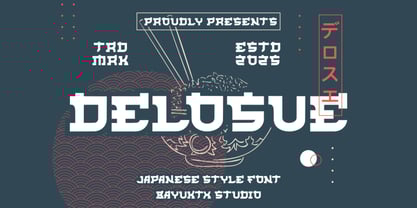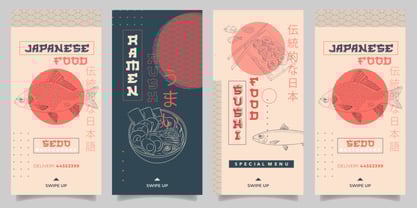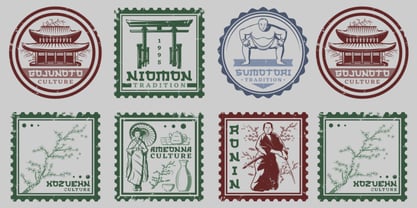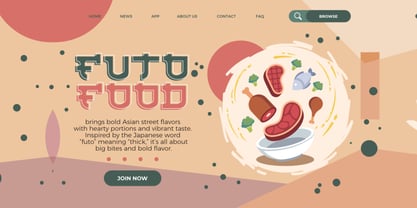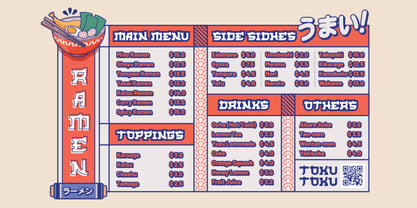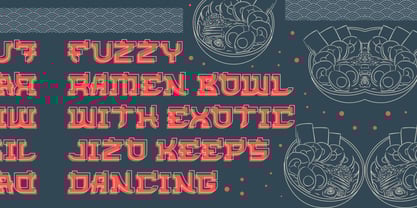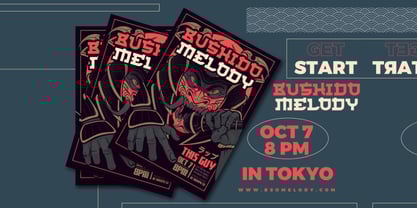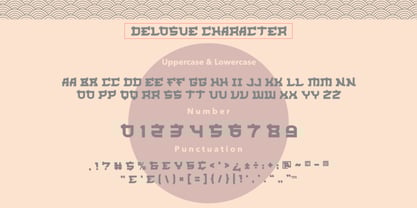
Delosue Japanese Style
by Bayuktx
The Delosue Japanese Style Font Family was designed by Bayu Aji Fais Mursid and published by Bayuktx. Delosue Japanese Style contains 1 styles. More about this family
Delosue a Japanese Style Font Delosue Japanese Style Font blends bold modern forms with traditional Japanese aesthetics, creating a distinctive fusion of cultural elegance and geometric precision. Each character reflects the structured balance of kanji-inspired design — powerful, clean, and visually striking. Inspired by ramen shop signage, samurai motifs, and retro Tokyo vibes, Delosue delivers a sense of discipline and creativity in one unified typeface. It captures the soul of Japanese minimalism while maintaining a contemporary edge perfect for digital and print works. Whether for restaurant branding, pop culture posters, or merchandise graphics, Delosue commands attention with its strong presence and artistic harmony. Key Features : * Uppercase & Lowercase * Numerals & Punctuation * Multilingual Support * PUA Encoded & OpenType Features Suitable For : * Japanese Food & Restaurant Branding * Poster & Merchandise Design * Pop Culture & Anime Projects * Logo & Packaging Design * Typography Art & Headlines Delosue Japanese Style Font brings the spirit of Japan into your design — bold, balanced, and beautifully crafted.
Designers: Bayu Aji Fais Mursid
Foundry: Bayuktx